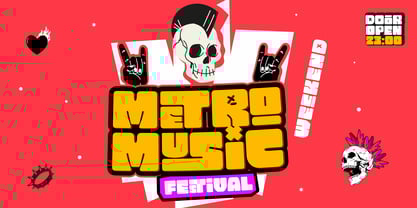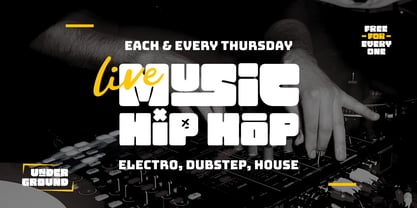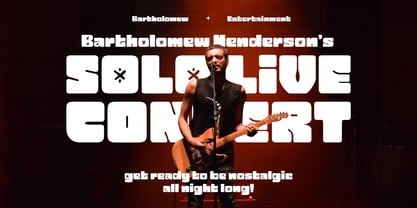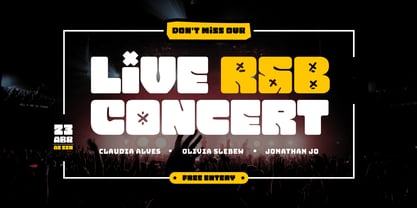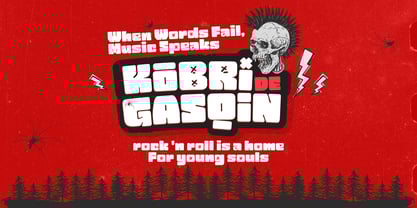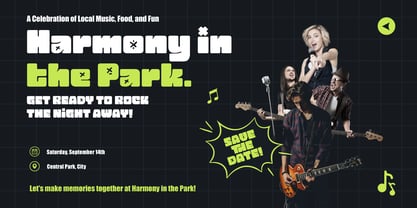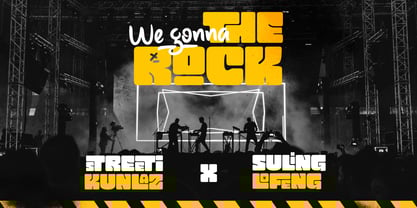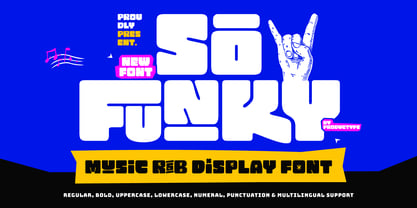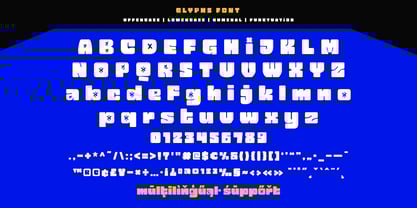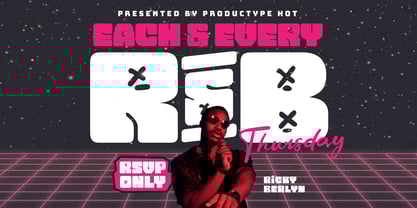
Sofunky
by Product Type
The Sofunky Font Family was designed by Lita Faolina and published by Product Type. Sofunky contains 1 styles. More about this family
Sofunky is a bold, vibrant display font crafted to capture the essence of R&B music and energetic design. Its ultra-thick letterforms exude personality, making it a perfect fit for projects that demand attention and confidence. Whether you're designing for album covers, music event posters, merchandise, or branding for a rhythm-infused business, Sofunky delivers unmatched energy and flair.
Inspired by the groove and vibe of R&B, Sofunky boasts a unique, impactful style that ensures every title or headline stands out. The font's chunky shapes create an engaging visual rhythm, inviting your audience to feel the music through your design. Make your creative projects come alive with Sofunky, and let its electrifying personality set the stage for your message.